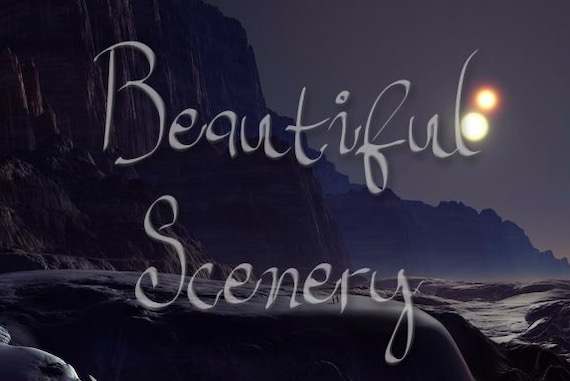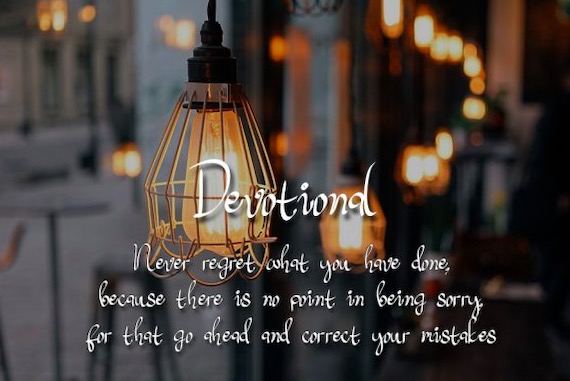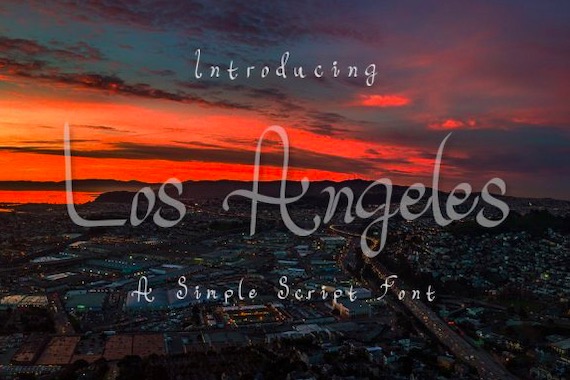
Introducing Los Angeles Font, an elegant modern handwritten script font that was made and shared by Slenting Art along with calligraphy feel in every design.
Los Angeles Calligraphy Script Font
Font family: Los Angeles Font
Full font name: Los Angeles Font
Designer Name: Slenting Art